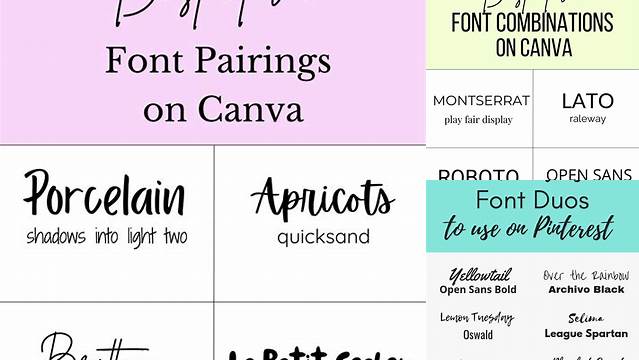
Best Free Font Combinations For Stunning Designs
Choosing the right fonts can be a game-changer for your designs. Typography is more than just selecting letters; it's about crafting a visual voice that resonates with your audience. A great font combination can elevate your project, making it look polished and professional. But, let's face it, wading through the sea of fonts can feel overwhelming, especially when you're trying to keep costs down. That's why we're diving into the world of free fonts and uncovering the best combinations that will make your designs shine without breaking the bank. Whether you're designing a website, crafting marketing materials, or simply looking to spice up your personal projects, understanding font pairings is crucial. So, let's jump in and explore some fantastic, cost-free options that will help you achieve the perfect visual harmony. We're going to break down why certain fonts work well together, give you practical examples, and equip you with the knowledge to confidently choose fonts for any project. You'll learn about the importance of contrast, readability, and how to create a visual hierarchy that guides the reader's eye. By the end of this guide, you'll be a font-pairing pro, ready to create stunning designs that leave a lasting impression.
Why Font Pairing Matters
So, you might be asking, "Why does font pairing even matter? Can't I just pick any two fonts I like?" Well, font pairing is crucial because it dramatically impacts how your message is perceived. Think of your fonts as the voice of your design. If the voices clash, your message gets lost in the noise. A well-chosen font combination creates a harmonious visual experience, enhancing readability and conveying the right tone and emotion. Imagine a beautifully written novel with a jarring, mismatched font – it would instantly detract from the reading experience. Similarly, a sleek, modern website would look out of place with a clunky, outdated typeface. Effective font pairing helps establish a clear visual hierarchy, guiding the reader's eye through the content in a logical and engaging way. The heading font should grab attention, the body font should be easy on the eyes, and any supporting text should complement both. This careful balance creates a cohesive and professional look, making your design more impactful. Moreover, the right font combination can reinforce your brand's identity. Different fonts evoke different feelings – some are playful and friendly, others are serious and authoritative. By selecting fonts that align with your brand's personality, you create a consistent visual language that resonates with your target audience. This consistency builds trust and recognition, making your brand more memorable and effective. So, font pairing isn't just about aesthetics; it's a strategic decision that influences communication, brand perception, and overall design success. Getting it right can elevate your work from amateur to professional, ensuring your message is heard loud and clear. It's like choosing the perfect outfit – each piece complements the others, creating a polished and confident look.
Key Principles of Font Pairing
Before we dive into specific font combinations, let's discuss the key principles that make font pairing successful. Think of these as the golden rules that will guide you in your font selection journey. First and foremost, contrast is king. You want your fonts to be different enough that they don't compete with each other, but rather complement each other. This contrast can be achieved through various means, such as pairing a serif font with a sans-serif font, or using fonts with different weights and styles. For instance, a bold heading in a sans-serif font can pair beautifully with a lighter serif font for the body text, creating a clear visual hierarchy. However, the contrast should be harmonious, not jarring. You want the fonts to work together, not clash. Another crucial principle is readability. No matter how beautiful a font is, if it's difficult to read, it's not a good choice for your project, especially for body text. Opt for fonts that are clear and legible, even at smaller sizes. Consider the font's x-height (the height of the lowercase letters) and its letter spacing. Fonts with a larger x-height and generous letter spacing tend to be more readable. And guys, don't forget about hierarchy. A good font pairing should help establish a clear visual hierarchy, guiding the reader's eye through the content in a logical order. The heading font should be attention-grabbing, the body font should be comfortable to read for extended periods, and any subheadings or captions should provide a clear transition between sections. This hierarchy makes your design more scannable and engaging, ensuring your message is easily understood. Finally, consider the mood and tone of your project. Different fonts evoke different emotions. A playful, whimsical font might be perfect for a children's book, but it would be out of place in a corporate report. Choose fonts that align with the overall message and style of your design. Are you aiming for a classic, elegant look, or a modern, edgy feel? Your font choices should reflect that. By keeping these principles in mind, you'll be well-equipped to create font pairings that are not only visually appealing but also effective in communicating your message.
Top Free Font Combinations You Can Use Today
Alright, let's get to the fun part: exploring some of the top free font combinations you can start using today. These pairings have been carefully selected to offer a range of styles and moods, ensuring there's something for every project. First up, we have the classic pairing of Roboto (Sans-Serif) and Merriweather (Serif). Roboto is a clean, modern sans-serif font that's incredibly versatile, making it a great choice for headings, body text, and everything in between. Merriweather, on the other hand, is a beautiful serif font designed for readability on screens, making it perfect for body text. The contrast between the clean lines of Roboto and the elegant serifs of Merriweather creates a harmonious balance, suitable for a wide range of projects, from websites to print materials. Next, let's talk about Open Sans (Sans-Serif) and Raleway (Sans-Serif). This pairing offers a more modern and minimalist feel. Open Sans is a highly legible sans-serif font that works well in a variety of contexts, while Raleway is a slightly more elegant sans-serif font that's perfect for headings and titles. This combination is ideal for designs that need to feel clean, professional, and approachable. If you're looking for something with a bit more personality, consider pairing Montserrat (Sans-Serif) with Lora (Serif). Montserrat is a geometric sans-serif font that exudes a sense of modernity and sophistication, while Lora is a well-balanced serif font with roots in calligraphy, giving it a more refined and literary feel. This pairing is perfect for projects that need to strike a balance between contemporary and classic styles. For a bold and impactful look, try Oswald (Sans-Serif) and Lato (Sans-Serif). Oswald is a condensed sans-serif font that's perfect for headlines and titles, while Lato is a clean and modern sans-serif font that's highly readable in body text. This combination is ideal for designs that need to grab attention and convey a sense of strength and confidence. And guys, for a more playful and friendly vibe, consider pairing Poppins (Sans-Serif) with Montserrat (Sans-Serif). Poppins is a geometric sans-serif font with a rounded character, making it feel approachable and modern. When paired with Montserrat, it creates a combination that's both stylish and easy to read. These are just a few examples, but the possibilities are endless. Experiment with different pairings and find what works best for your specific project. Remember, the key is to create contrast, ensure readability, and align the fonts with the overall mood and tone of your design.
Tips for Choosing the Right Font Combination
Choosing the right font combination can feel like a daunting task, but with a few helpful tips, you can confidently select fonts that elevate your designs. First, start with a goal in mind. Before you even begin browsing fonts, ask yourself: What message am I trying to convey? What is the overall tone and mood of my project? Understanding your goals will help you narrow down your options and choose fonts that align with your vision. Are you aiming for a professional, corporate feel? Or a playful, creative vibe? Your font choices should reflect that. Next, consider your audience. Who are you designing for? Different audiences may respond differently to various font styles. A younger audience might appreciate a more modern and playful font, while an older audience might prefer a more traditional and legible typeface. Think about your target demographic and choose fonts that resonate with them. Don't be afraid to use font pairing resources and tools. There are numerous websites and tools available that can help you discover font pairings. These resources often provide curated combinations and allow you to preview how different fonts look together. Experiment with these tools to get inspiration and explore new pairings you might not have considered. And guys, don't overdo it. While it might be tempting to use a wide variety of fonts in your design, it's generally best to stick to a maximum of two or three fonts. Too many fonts can create a cluttered and confusing look, detracting from your message. Choose a primary font for headings and titles and a secondary font for body text, and perhaps a third font for captions or other supporting text. Another crucial tip is to test your font choices. Before finalizing your design, test your font combination in different sizes and contexts. How does it look on a small mobile screen compared to a large desktop monitor? Is the body text easy to read for extended periods? Testing ensures that your font choices are effective across various platforms and devices. Finally, trust your instincts. While there are general guidelines for font pairing, ultimately, the best font combination is the one that feels right for your project. Experiment, explore, and don't be afraid to break the rules. The more you practice, the better you'll become at choosing fonts that create a cohesive and impactful design. Remember, font pairing is a skill that improves with experience, so keep experimenting and learning.
Common Font Pairing Mistakes to Avoid
Even with the best intentions, it's easy to stumble into common font pairing mistakes that can undermine your design. Being aware of these pitfalls will help you avoid them and create more effective font combinations. One of the biggest mistakes is pairing fonts that are too similar. Remember, contrast is key. If your fonts are too alike, they'll compete with each other, creating a visual dissonance that makes your design look unintentional. For example, pairing two sans-serif fonts with similar weights and styles can result in a bland and uninspired look. Instead, aim for contrast by pairing a serif with a sans-serif, or using fonts with different weights and x-heights. Another common mistake is overusing decorative or script fonts. While these fonts can add a touch of personality and flair to your design, they're often difficult to read in large blocks of text. Save decorative fonts for headings, titles, or other short pieces of text, and opt for a more legible font for your body copy. Think of decorative fonts as the spice in your dish – a little goes a long way. Guys, ignoring readability is another critical mistake. No matter how beautiful a font is, if it's difficult to read, it's not a good choice for your project, especially for body text. Choose fonts that are clear and legible, even at smaller sizes. Consider the font's x-height, letter spacing, and overall design. A font that looks stunning at 72 points might be a disaster at 12 points. Another pitfall is failing to establish a visual hierarchy. Your font choices should help guide the reader's eye through the content in a logical order. If all your text is in the same font and size, it can be difficult for the reader to know where to focus their attention. Use different font weights, sizes, and styles to create a clear hierarchy, with headings standing out from body text and subheadings providing a clear transition between sections. Finally, overcomplicating things is a common mistake. As we mentioned earlier, it's generally best to stick to a maximum of two or three fonts in your design. Using too many fonts can create a cluttered and confusing look that detracts from your message. Keep it simple, focus on creating a harmonious balance between your chosen fonts, and let your design shine. By avoiding these common mistakes, you'll be well on your way to creating font pairings that are not only visually appealing but also effective in communicating your message.
In conclusion, mastering the art of font pairing is an essential skill for any designer, whether you're a seasoned professional or just starting. By understanding the key principles of contrast, readability, and visual hierarchy, and by avoiding common mistakes, you can create font combinations that elevate your designs and effectively communicate your message. We've explored a variety of free font combinations that you can start using today, offering a range of styles and moods to suit any project. Remember, the right font pairing can make all the difference, transforming a good design into a great one. So, don't be afraid to experiment, explore, and trust your instincts. The more you practice, the better you'll become at choosing fonts that create a cohesive and impactful visual experience. And guys, always keep learning and staying updated with the latest trends in typography. The world of fonts is constantly evolving, and there's always something new to discover. Whether you're designing a website, creating marketing materials, or simply working on personal projects, the principles of font pairing will serve you well. So, go ahead, dive into the world of typography, and let your fonts speak volumes. With the right combination, you can create designs that not only look beautiful but also effectively convey your message and resonate with your audience. Happy designing!